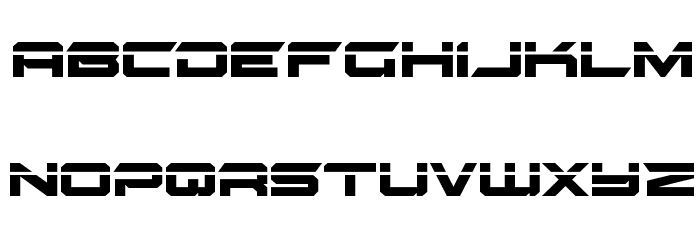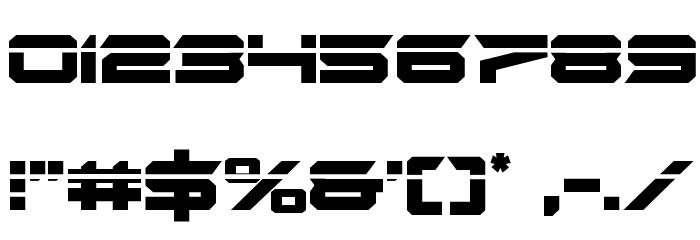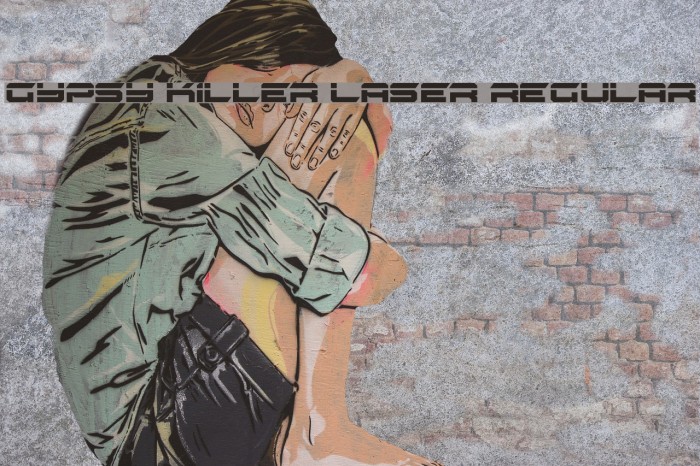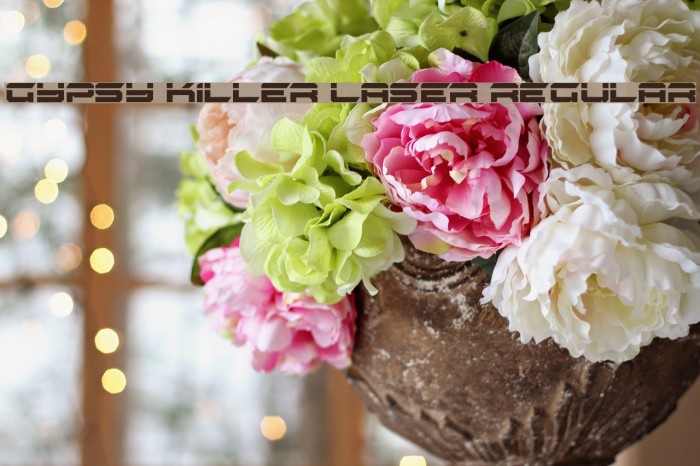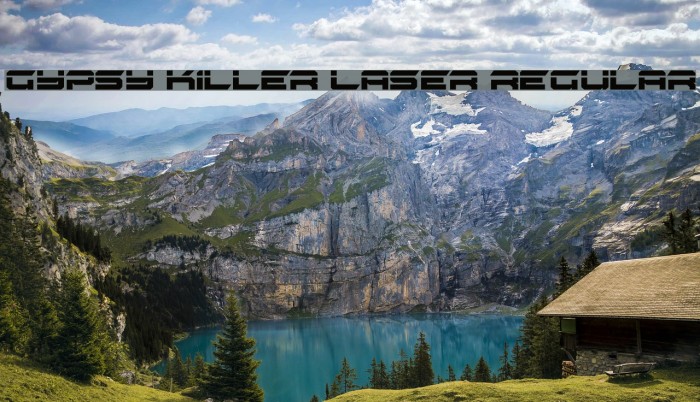
Gypsy Killer Laser Regular Font
This font features a bold, futuristic design with a strong geometric structure. The characters are constructed with sharp angles and a blocky appearance, giving it a distinct, modern look. The uppercase and lowercase letters maintain a consistent style, with minimal curves and a focus on straight lines. Numbers and special characters follow the same design principles, ensuring uniformity across all glyphs. The font's unique style makes it stand out, ideal for projects that require a modern and edgy aesthetic.
A bold, geometric font with a futuristic and modern design.
- Proposed Projects: Ideal for sci-fi themed projects, video game titles, tech branding, and futuristic posters.